dot-font: Zapfest
Editor’s Note: This weekend, an exhibit and lecture series focusing on the contributions of Hermann Zapf and Gudrun Zapf von Hesse kicks off in San Francisco. John D. Berry will be back next week to fill us in on the festivities, but in the meantime this preview, which originally appeared on April 6, puts it all into perspective. For an event schedule and location information, click here.
Underlying all of the pixelized letterforms we see on the screen or the page is a long tradition of handwritten letters. Some of our digital fonts are more directly influenced by calligraphy than others; in many cases, it’s the liveliness imbued by the traces of the pen that gives a typeface its distinctive sparkle.
Two of the finest practitioners of both traditional calligraphy and modern digital type design are Hermann Zapf and Gudrun Zapf von Hesse. They have consistently embraced new technology and turned it to the service of enduring quality. Beginning this September in San Francisco, an exhibition and series of ancillary events will highlight the considerable contributions of the Zapfs. Officially, the exhibition will be called “Calligraphic Type Design in the Digital Age: An Exhibition in Honor of the Contributions of Hermann and Gudrun Zapf”; informally, it’s being referred to as Zapfest.
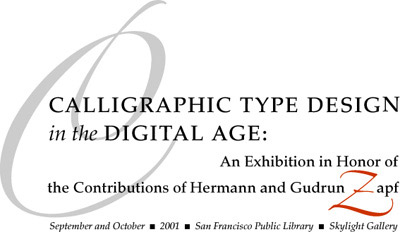
The “Zapfest” exhibit and lectures will begin in September.
Calligraphy & Typography
As the organizers put it in the opening of their first press release: “Formal writing with the edged pen—all but dead a century ago—now enlivens much of the text we read. It is assumed that the written word has been supplanted by keystrokes, yet this resurgence and interest in calligraphy and typefaces derived from the hand is flourishing. How did this happen? In no small part it is a result of the efforts of two designers: Hermann Zapf and Gudrun Zapf von Hesse. For more than half a century, they have been creating typefaces while educating designers and technologists about letterforms. This is clearly cause for celebration.”
Virtually everyone who works on a computer is familiar with some of Hermann Zapf’s work, whether they know it or not. His 1949 typeface Palatino has become one of the common default fonts on laser printers, although it has undergone some modification in the passage from metal to PostScript. And of course the eponymous Zapf Chancery—or at least one of its several variants—is on pretty much everybody’s machine. Although Gudrun Zapf has been a less prolific type designer than her husband, her Nofret type family and its predecessor Diotima have been widely used by discerning designers.
Herman Zapf designed Palatino in 1949.
Who, What, Where
There is a large and flourishing community of calligraphers and lovers of the calligraphic hand in Northern California (as elsewhere); Zapfest grew out of the enthusiasm of a local society called the Friends of Calligraphy, though it involves quite a few other groups besides the hard-core community of scribes. The three curators of the exhibition, which will be on view in the Skylight Gallery of the San Francisco Public Library throughout September and October, are Sumner Stone, the noted American type designer; Susie Taylor, curator of the Harrison Collection at the San Francisco Public Library; and Linnea Lundquist, typographer, calligrapher, type designer, and former student of Hermann Zapf.
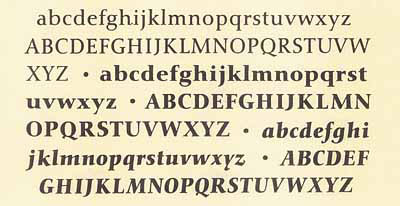
Gudrun Zapf von Hesse’s Nofret, designed in 1987.
The exhibition will feature the work of both Zapfs, including several of the typefaces they have designed—especially the more calligraphic ones—along with their calligraphic work itself (from which some of the typefaces derived) and “special books and posters designed using their typefaces.” The exhibition will expand from there to show the work of fourteen other designers of calligraphic typefaces, and the wide variety that’s possible in this field: Alan Blackman, Erik van Blokland, Rick Cusick, Timothy Donaldson, Jean Evans, Phill Grimshaw, Cynthia Hollandsworth, Akira Kobayashi, Richard Lipton, Jacqueline Sakwa, Robert Slimbach, Viktor Solt, Jovica Veljovic, and Julian Waters.
Herman Zapf designed the now-ubiquitous ITC Zapf Chancery in 1979.
Talkin’ Typography
The Zapfs themselves, whom the press release describes as “energetic octogenarians,” will be there for the opening, over Labor Day weekend, and the Friends of Calligraphy plans to present them both with “Lifetime Achievement Awards for Excellence in Calligraphy & Type Design.” Over the course of the two-month-long exhibition, a series of lectures will be given by significant typographers, calligraphers, printers, and educators. The speakers are expected to include Sumner Stone; Charles Bigelow, designer with Kris Holmes of the Lucida family of typefaces; Robert Bringhurst, who wrote the influential “Elements of Typographic Style“; Cynthia Hollandsworth, designer of the distinctive typeface Hiroshige and former director of typographic development for Agfa Compugraphic; and Jack Stauffacher, the legendary San Francisco fine printer. (Full disclosure: I am helping to organize the lecture series. There will be additional speakers.)
Columbine, by Gudrun Zapf von Hesse, designed in 1991.
Transcending the Medium
As I’ve mentioned before, it takes a great deal of skill and painstaking work to turn written letters—whether casual handwriting or formal calligraphy—into a typeface. The subtle modulations that you’d make each time you write a letter have to be generalized into something that will work when repeated hundreds of times in dozens of combinations. Both Hermann and Gudrun Zapf are masters of this.